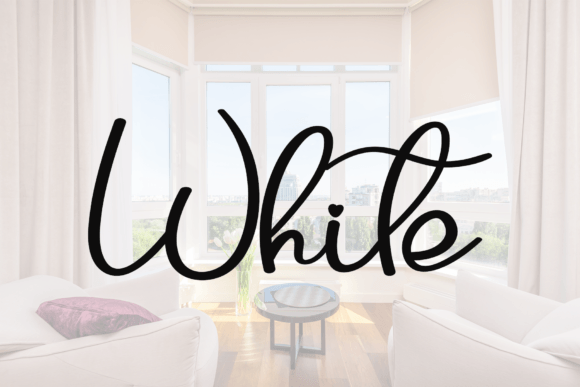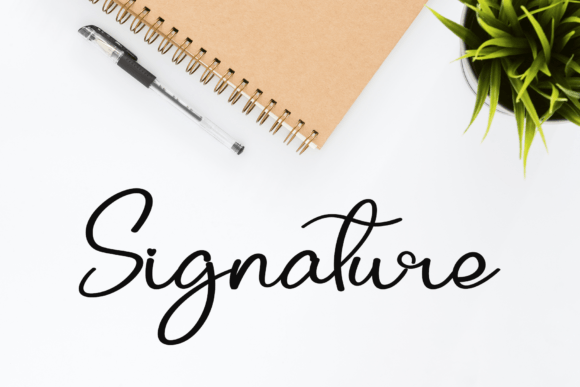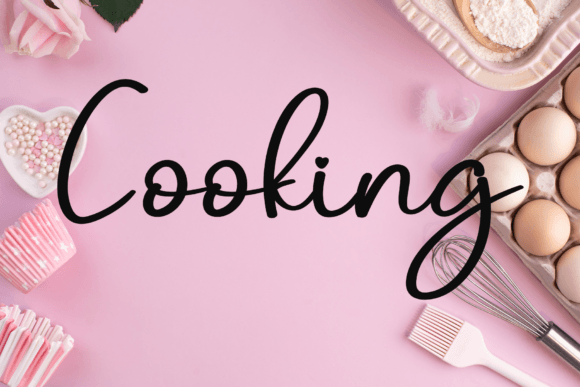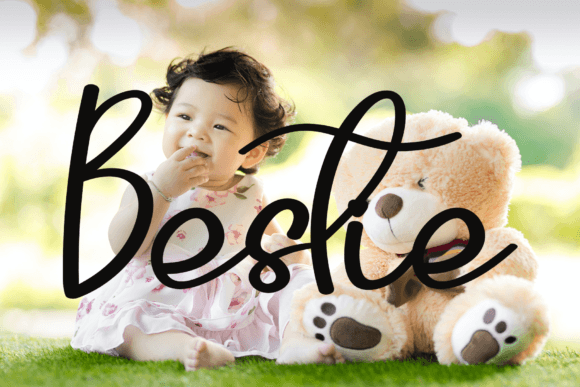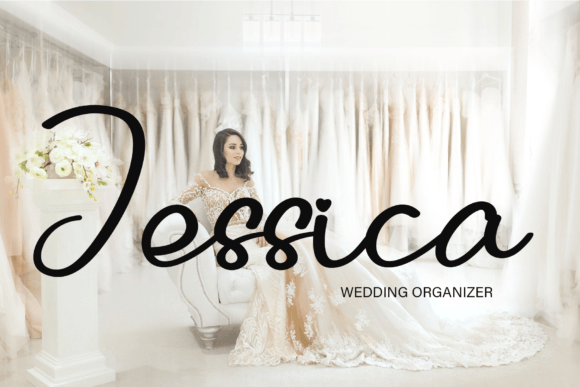
About The House Font
**The House Font: Elegance in Every Stroke for Your Favorite Projects**
Discover “The House,” a font that blends neatness with beauty, showcasing an elegant touch that’s perfect for your favorite projects. Fall in love with its distinct and timeless style, and let it become the cornerstone of your spectacular designs.
**Neat and Beautiful Handwritten Elegance:**
The House stands out with its neat and beautiful handwritten strokes that carry an air of elegance. Every letter is crafted with precision, making it an ideal choice for projects that demand a touch of sophistication and refinement.
**Distinct and Timeless Style:**
Immerse yourself in the distinct and timeless style of The House. Whether used for headers, logos, or any creative endeavor, this font captivates with its enduring charm, creating designs that transcend fleeting trends and leave a lasting impression.
**Perfect for Your Favorite Projects:**
The House is not just a font; it’s an invitation to elevate your favorite projects. From personal endeavors to professional pursuits, this font enhances your creativity, turning ordinary designs into extraordinary expressions of style and grace.
**Versatility and Spectacular Designs:**
Embrace the versatility of The House, making it suitable for a wide range of projects. From invitations to branding, this font adapts seamlessly, allowing you to create spectacular designs that resonate with both modern aesthetics and classic elegance.
**Fall in Love with Elegance:**
As you use The House, you’ll find yourself falling in love with the elegance it brings to your work. It’s more than a font; it’s a design companion that adds a touch of refinement to your creative journey, making every project a showcase of timeless beauty.
Choose The House for an exquisite blend of neatness, beauty, and elegance. Let its distinct and timeless style be the inspiration behind your most cherished designs. Transform your projects into visual masterpieces that stand out, leaving an indelible mark on anyone who encounters the allure of The House font.